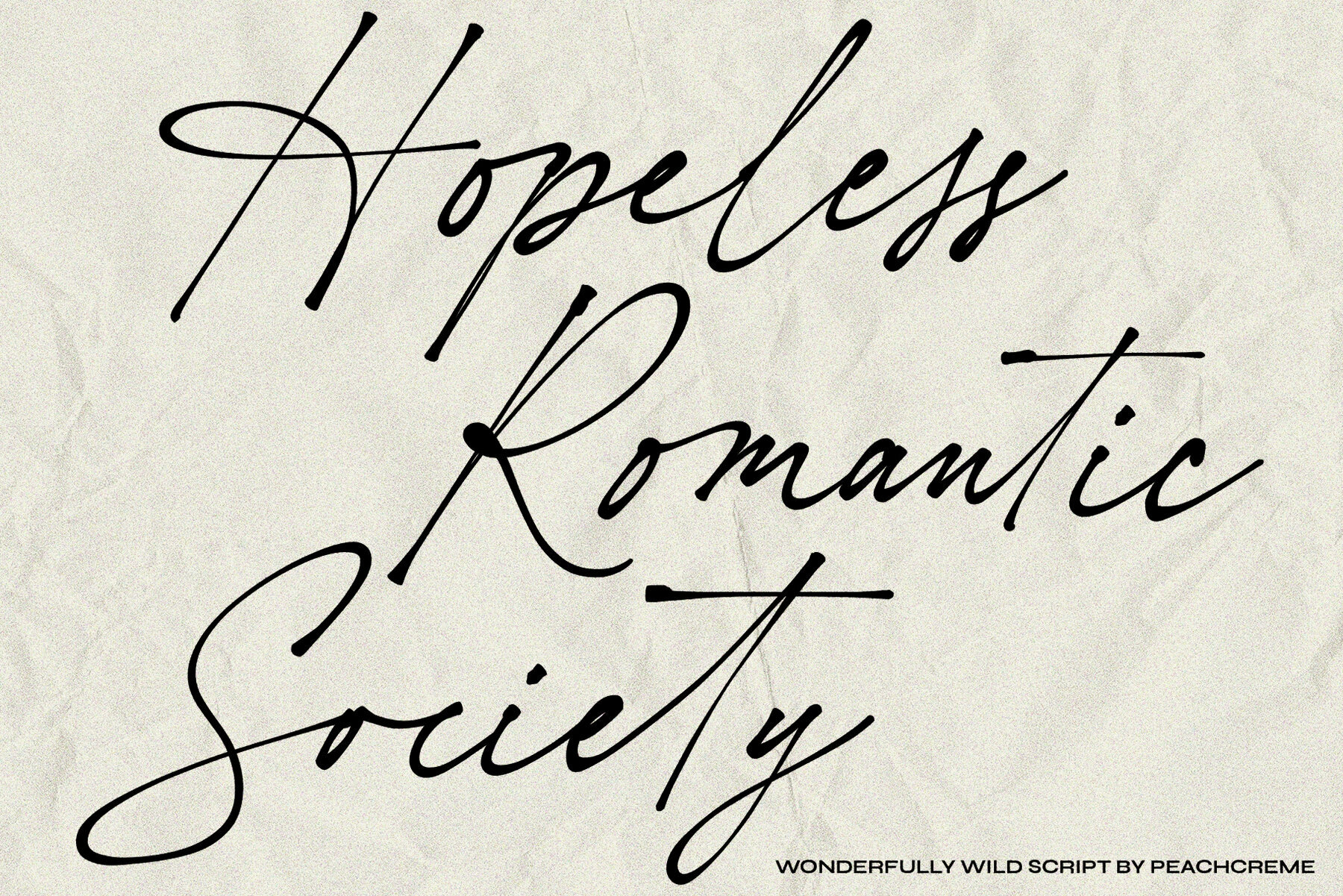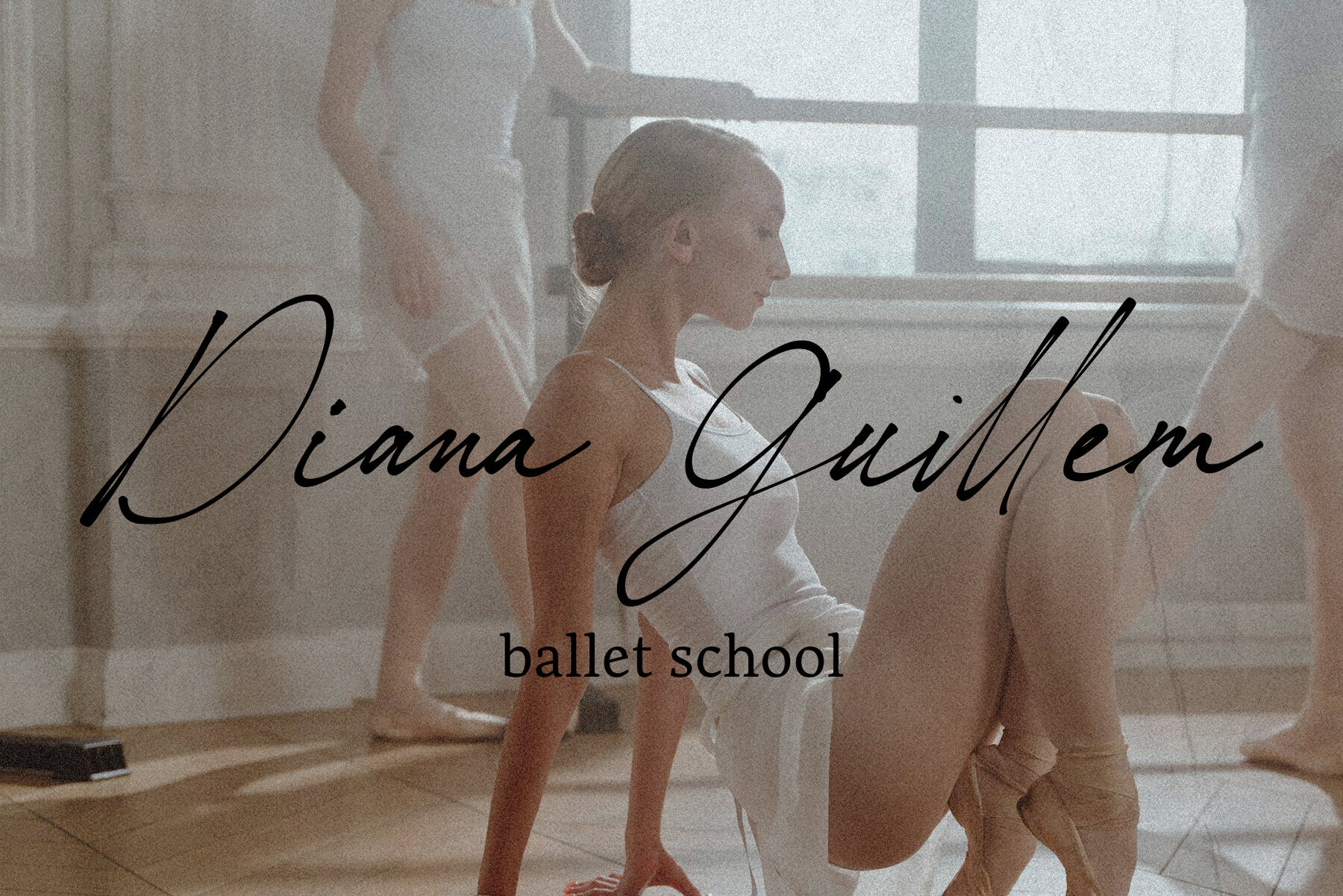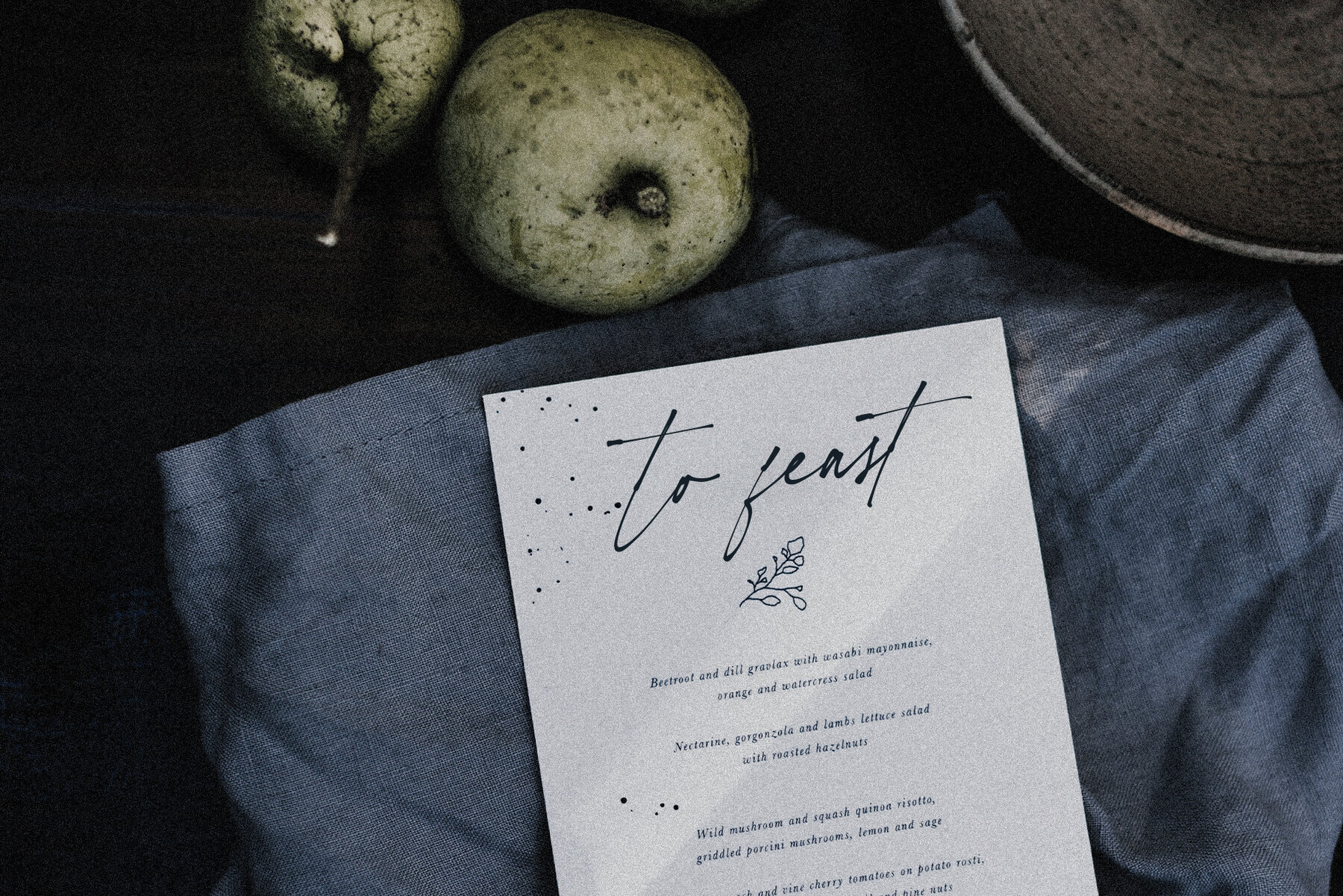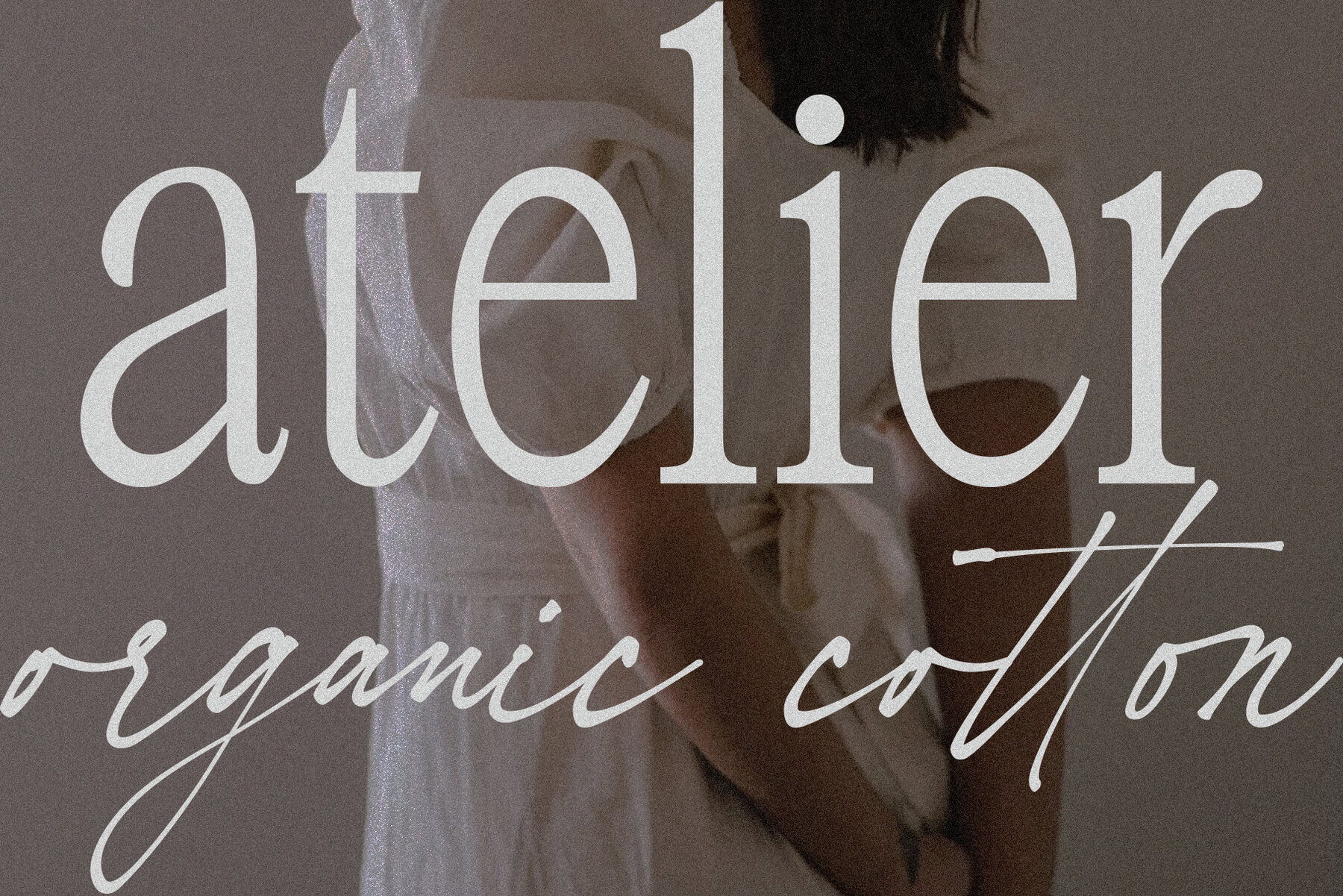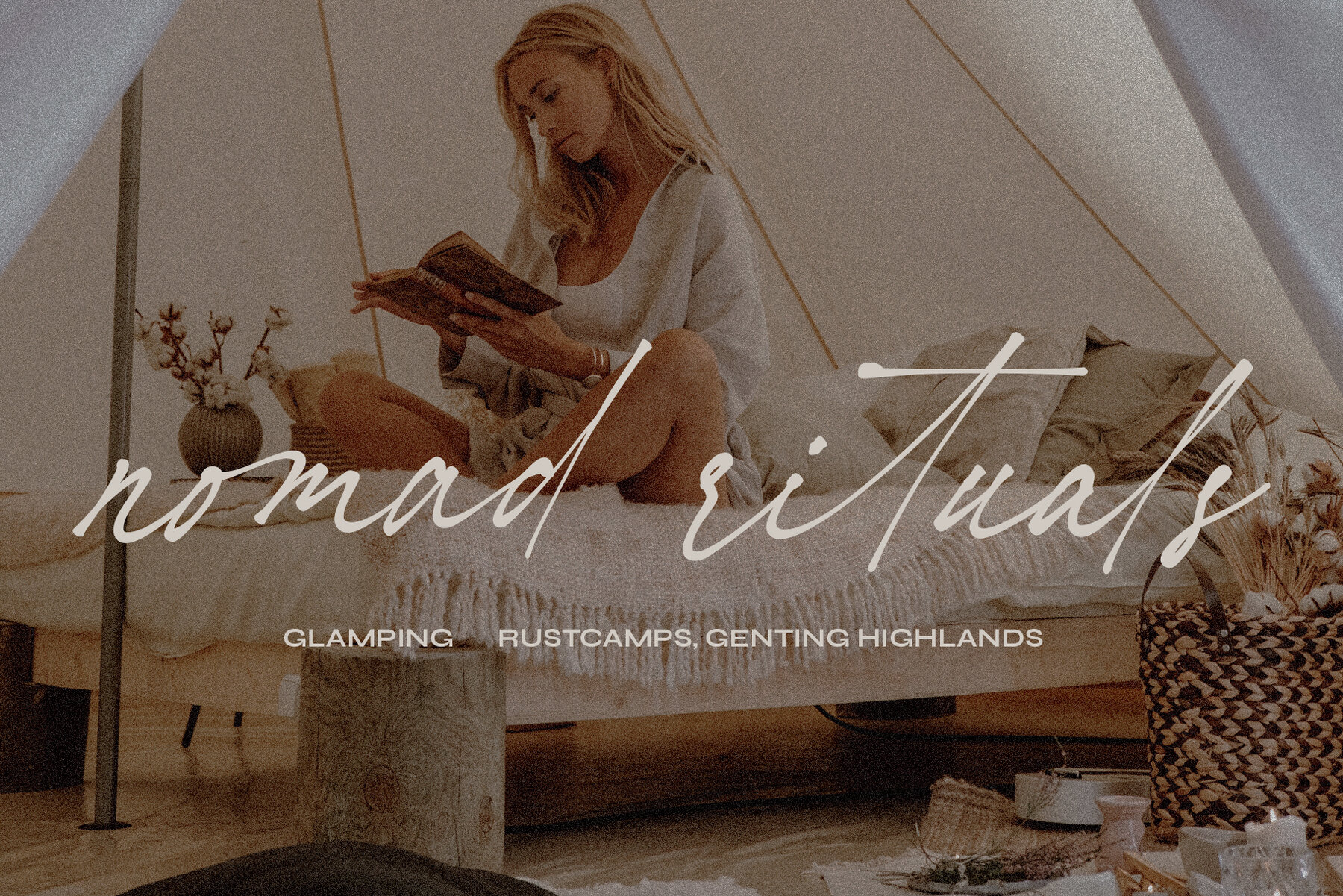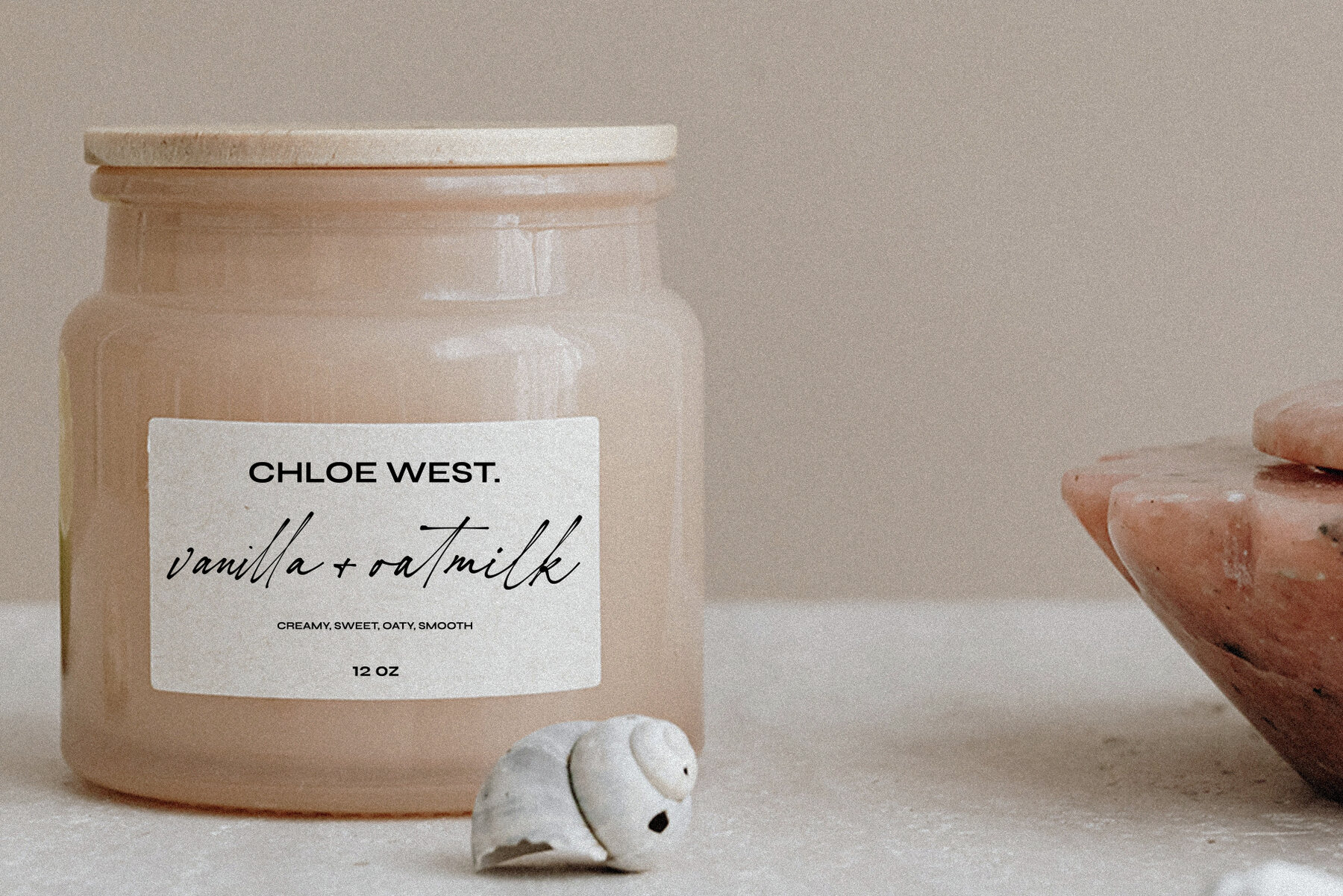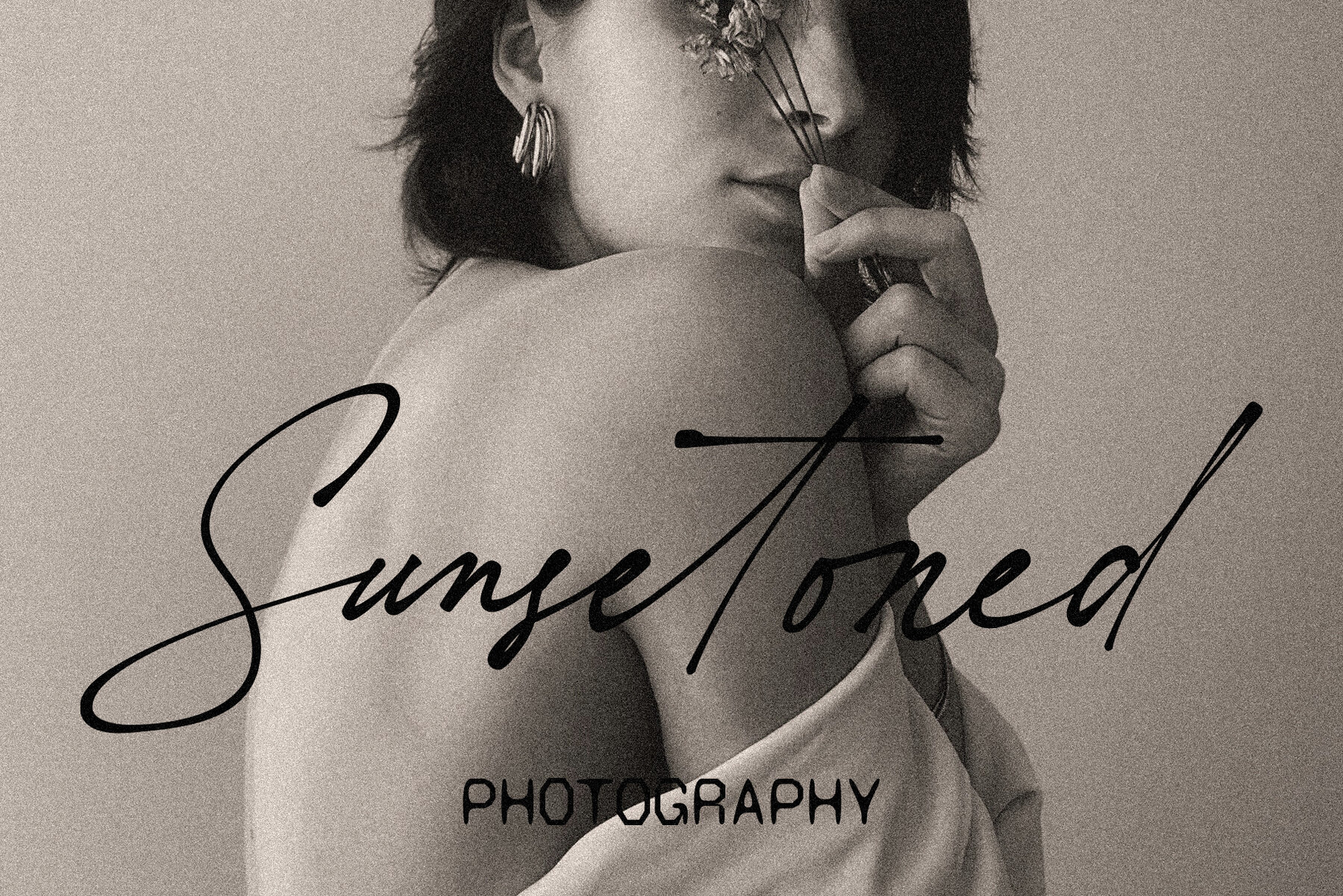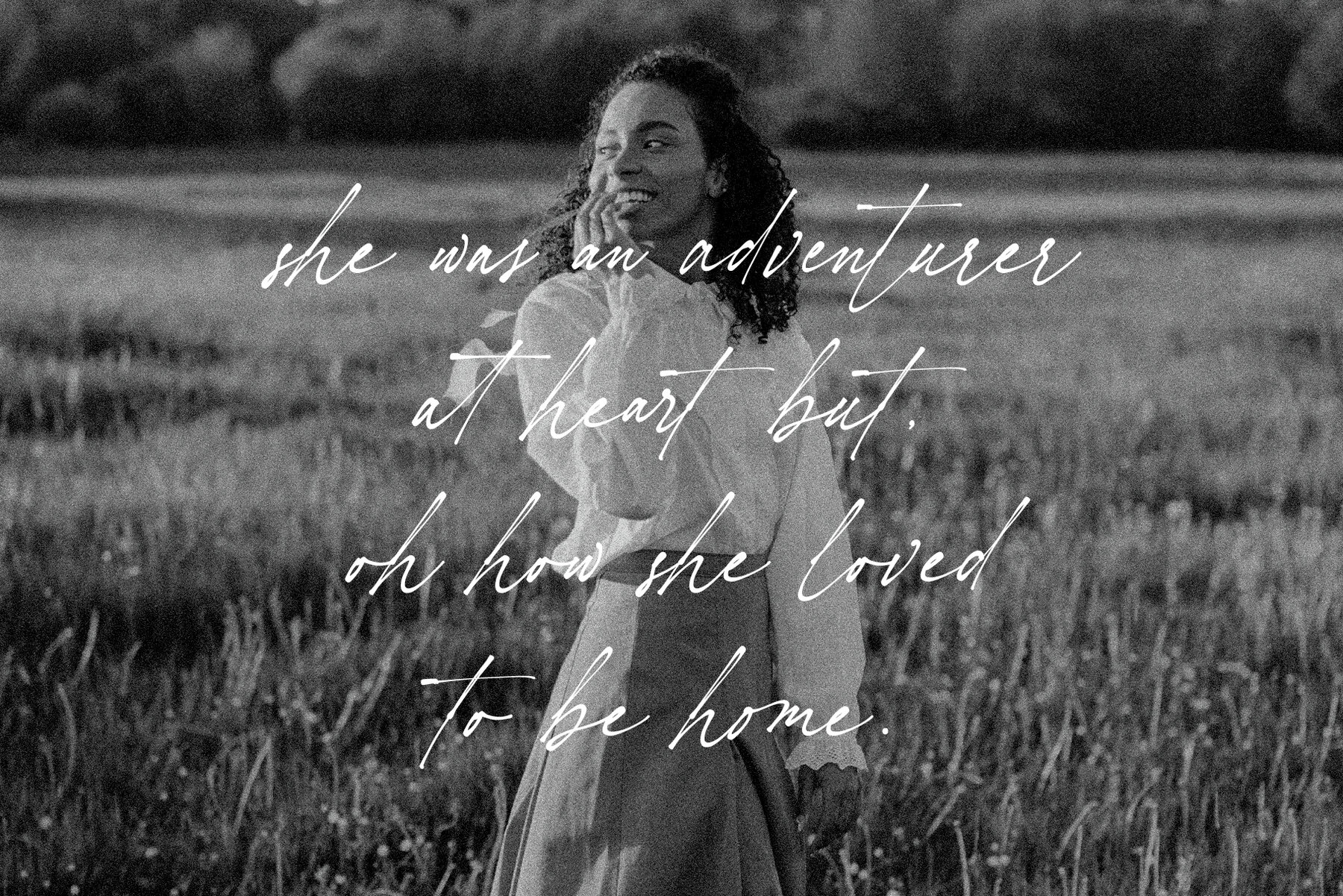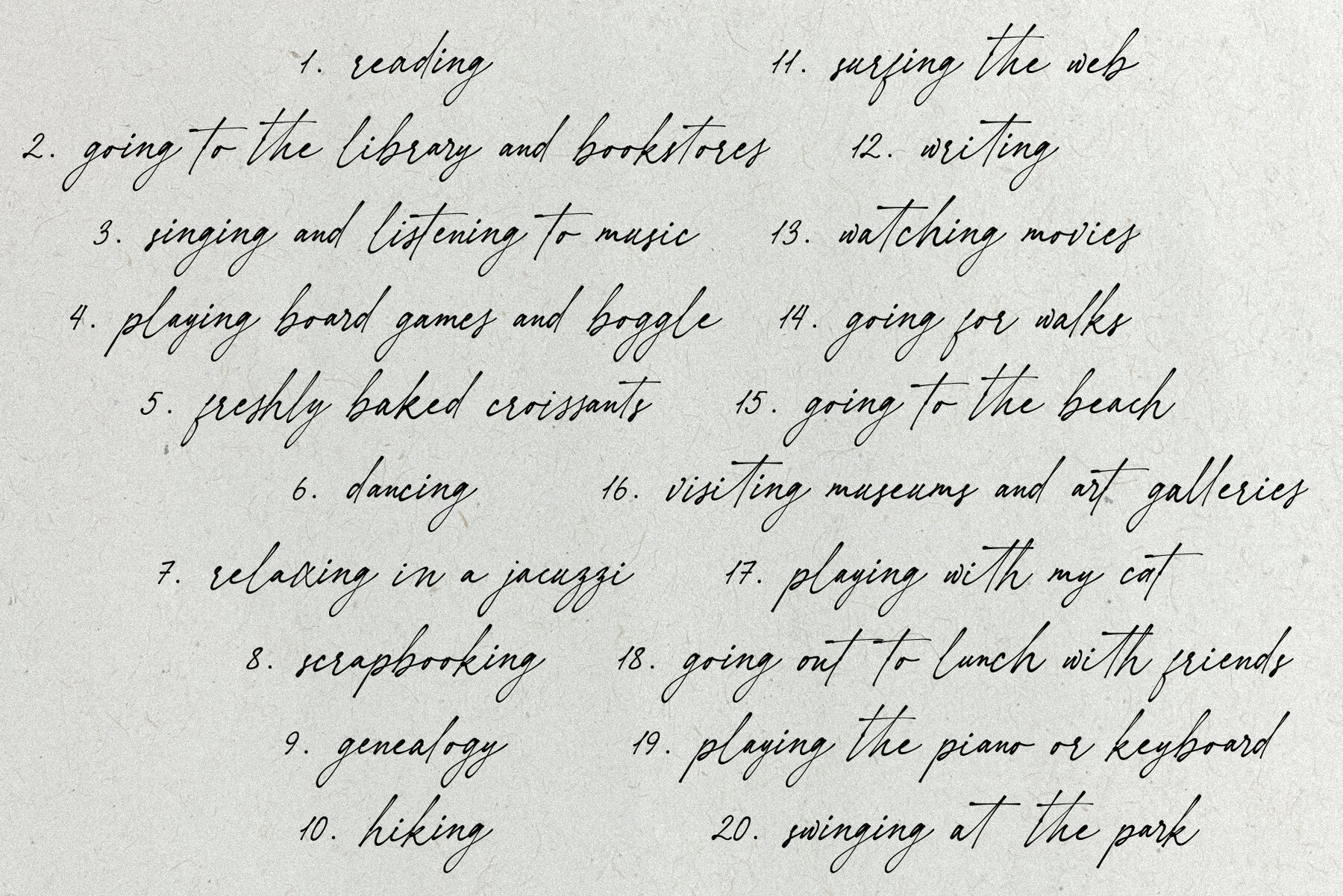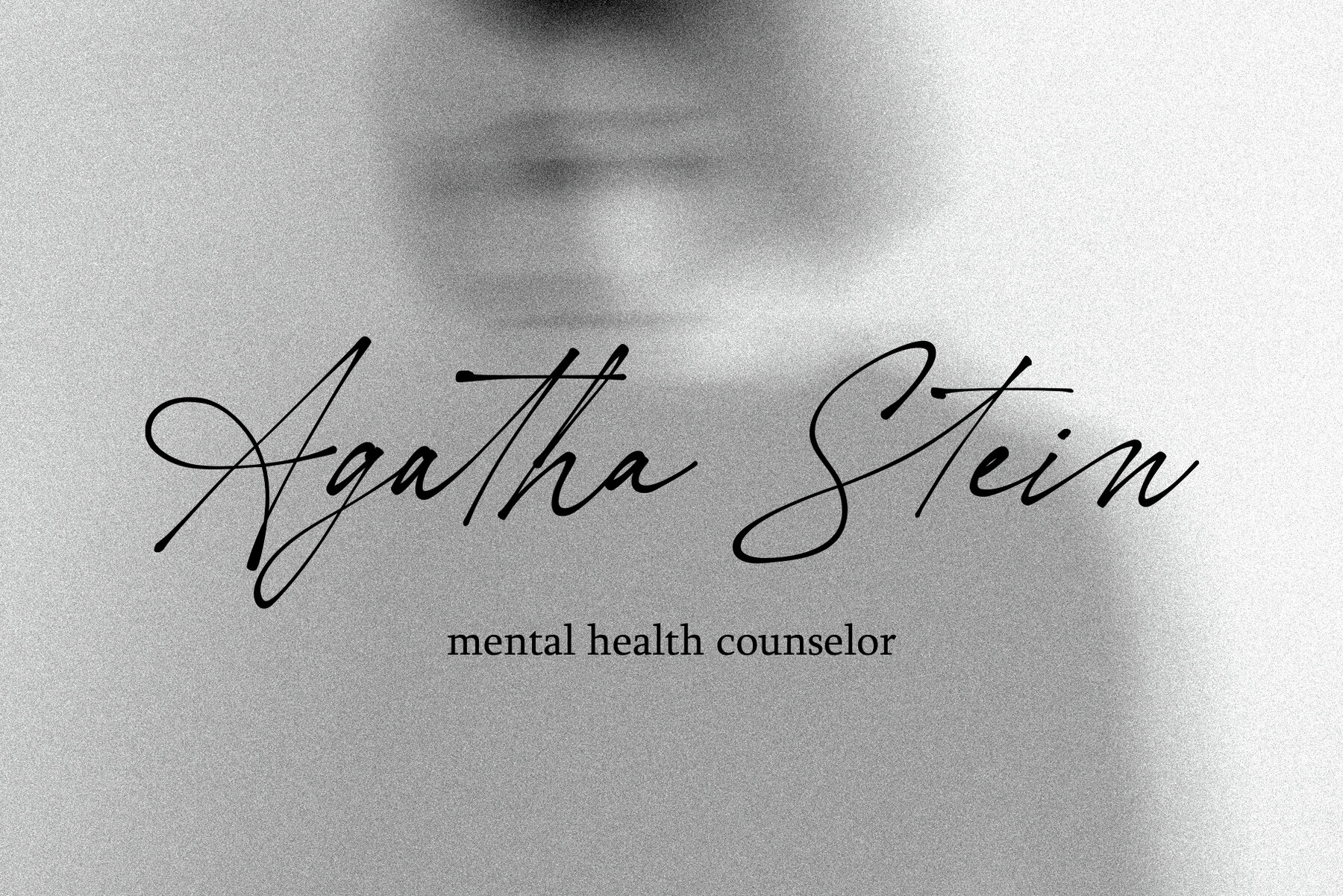
Hopeless Romantic Society Font
Hopeless Romantic Society
Introducing an imperfectly charming handwritten font, Hopeless Romantic Society, designed to liven up your creative projects. This carefree, ligature-filled typeface channels the charm of hand-written notes with its delightful imperfections. The font includes 55 ligatures, adding an extra layer of authenticity to your designs.
Perfect for playful logos, handwritten letters, or any project requiring a touch of whimsy, Hopeless Romantic Society is your go-to typeface. Its imperfect strokes and natural flow provide a heartfelt, personal feel that is sure to captivate your audience. Enhance your design work with the distinctive character of Hopeless Romantic Society.